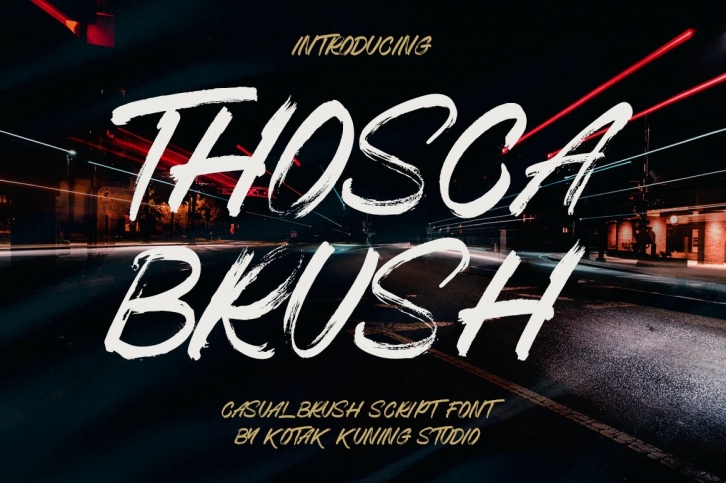
Thosca Brush is a trendy and unique font with an authentic style. It was designed by Kotak Kuning Studio and it's a great choice for creative people who need such a font. It was released on June 24, 2020 and the file size is 19.34 MB. Thosca Brush will add an organic vibe to any design idea!